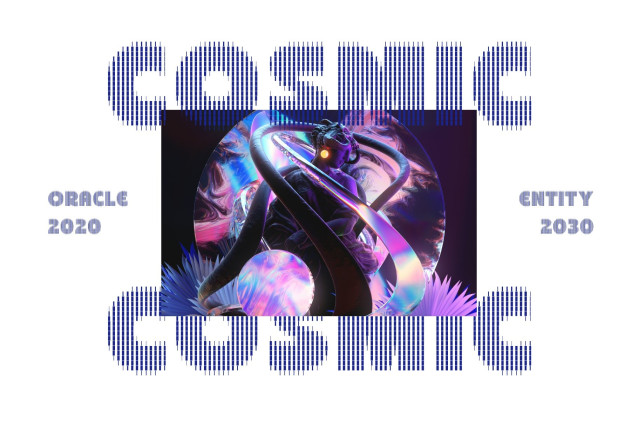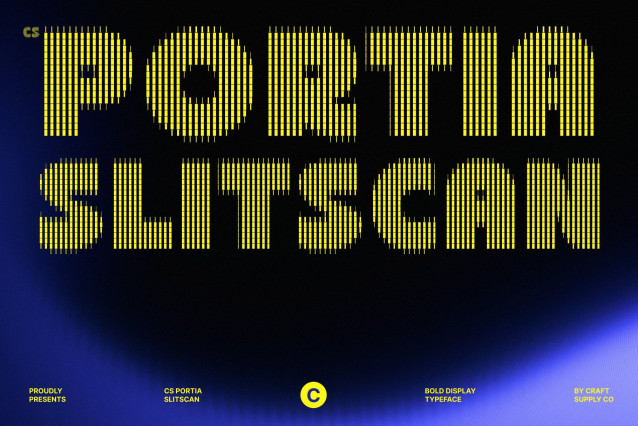
CS Portia Slitscan – Bold Sans Serif Display Font: Where Energetic Expression Meets Futuristic Distortion
Thick Expressive Forms with Playful Energy
This is a bold sans serif display font designed to bring fun, excitement, and expressive energy into every design. Its thick eye-catching letterforms and lively structure create a strong visual identity filled with confidence, movement, and modern personality. Every character feels bold and dynamic, making the font perfect for creative projects that aim to stand out with impact and character.
Slitscan Effect with Futuristic Digital Motion
This font features vertical cut-out layers and fragmented visual motion inspired by slit-scan photography and glitch aesthetics. This multi-layered distortion effect introduces speed, depth, and experimental digital energy, creating a futuristic atmosphere infused with cyberpunk and glitch-art influence.